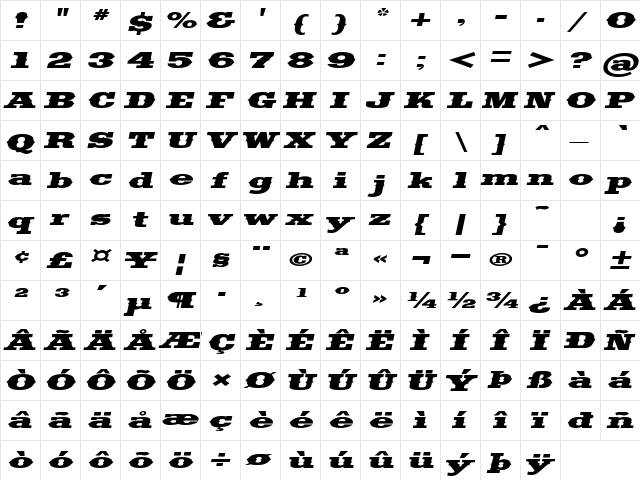
SaddlebagExtended Italic
Design Context for SaddlebagExtended Typeface
SaddlebagExtended offers clean, dependable letterforms without strong stylistic allegiance, making it a practical choice for designers who need flexibility. The dynamic lean of this cut emphasises speed and emphasis in any layout.
Pro Tip: Use SaddlebagExtended for emphasis, pull quotes, and subheadings where its slanted energy can add rhythm to the layout.